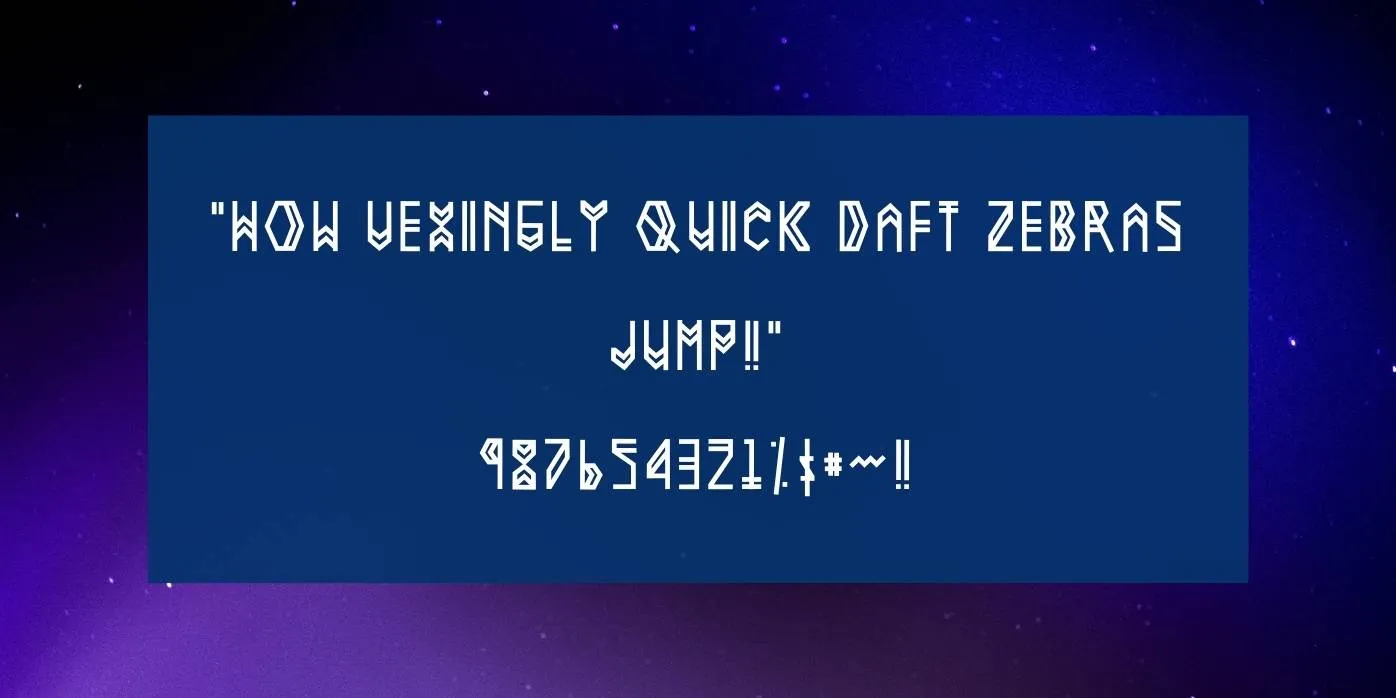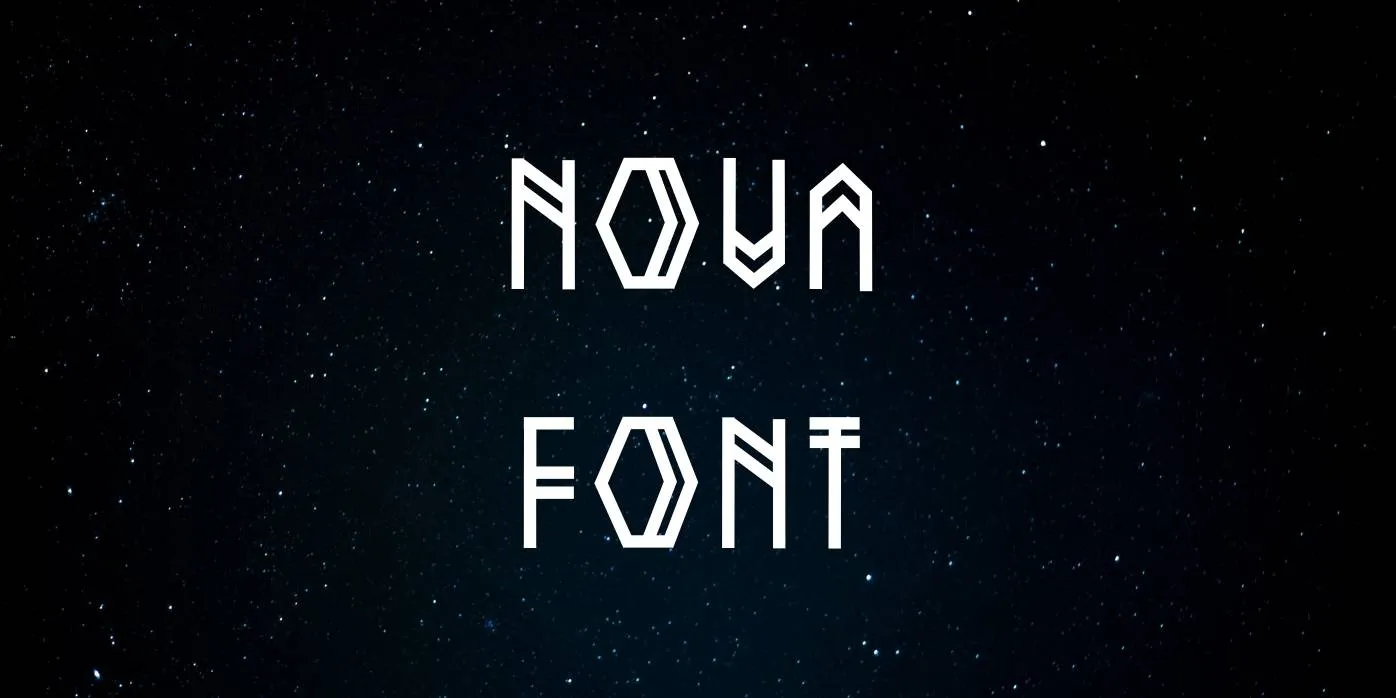
Nova Font
Nova font is a sans-serif typeface that was designed by Billy Argel Fonts. This is an amazing typeface, that has fantastic characters with boldness and hollowness. The typeface that is best for use in your project with this typeface is tetris blocks font. An online generator tool for this typeface is also stunning.